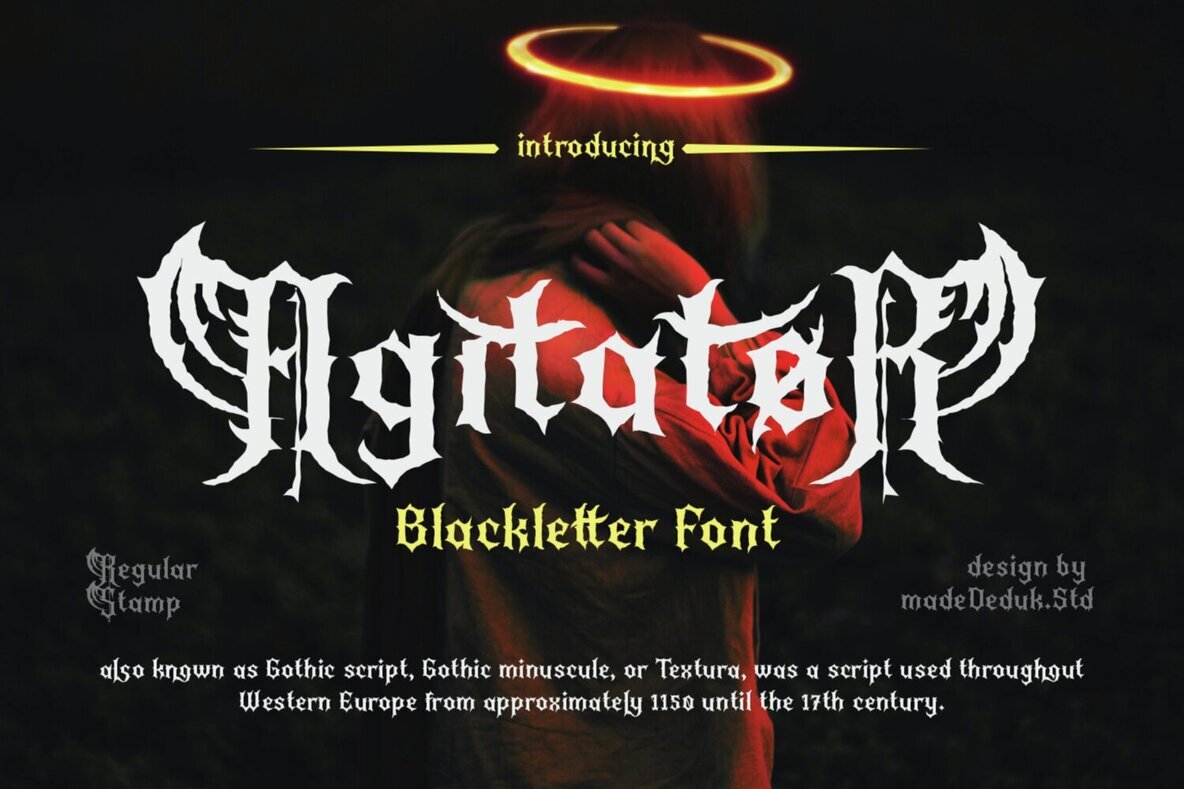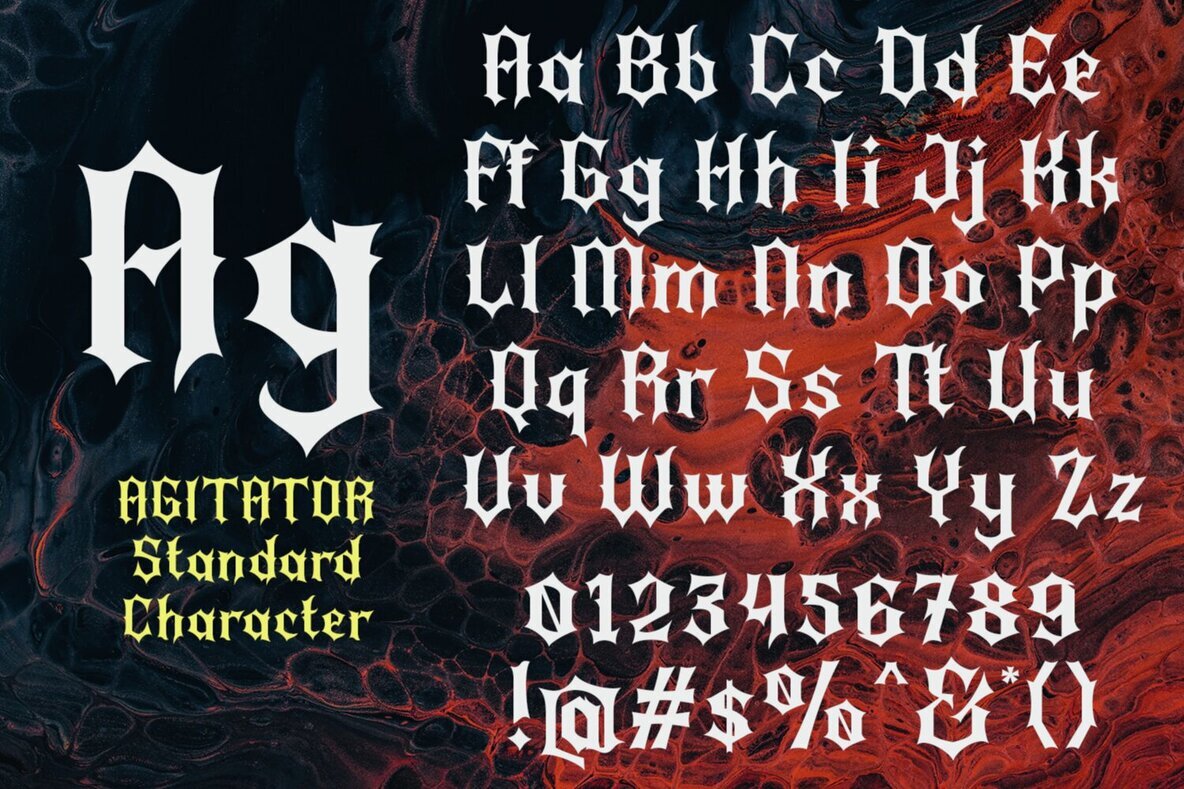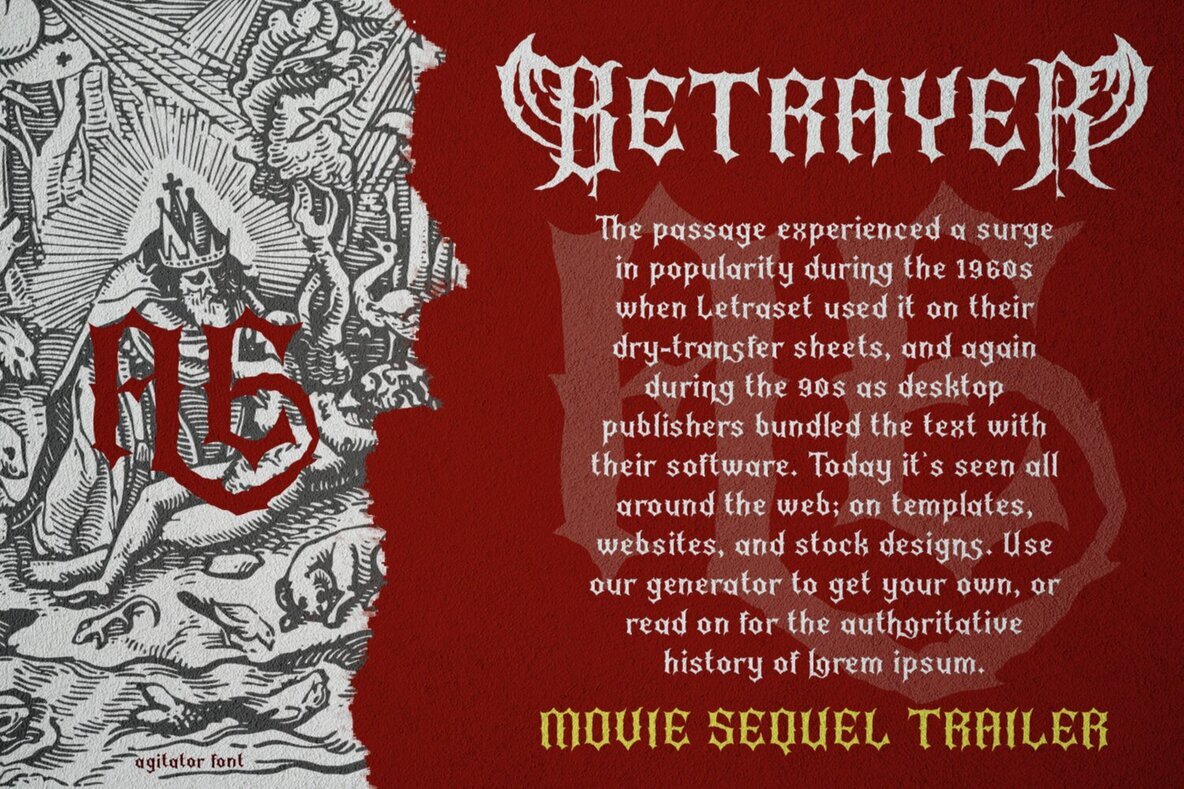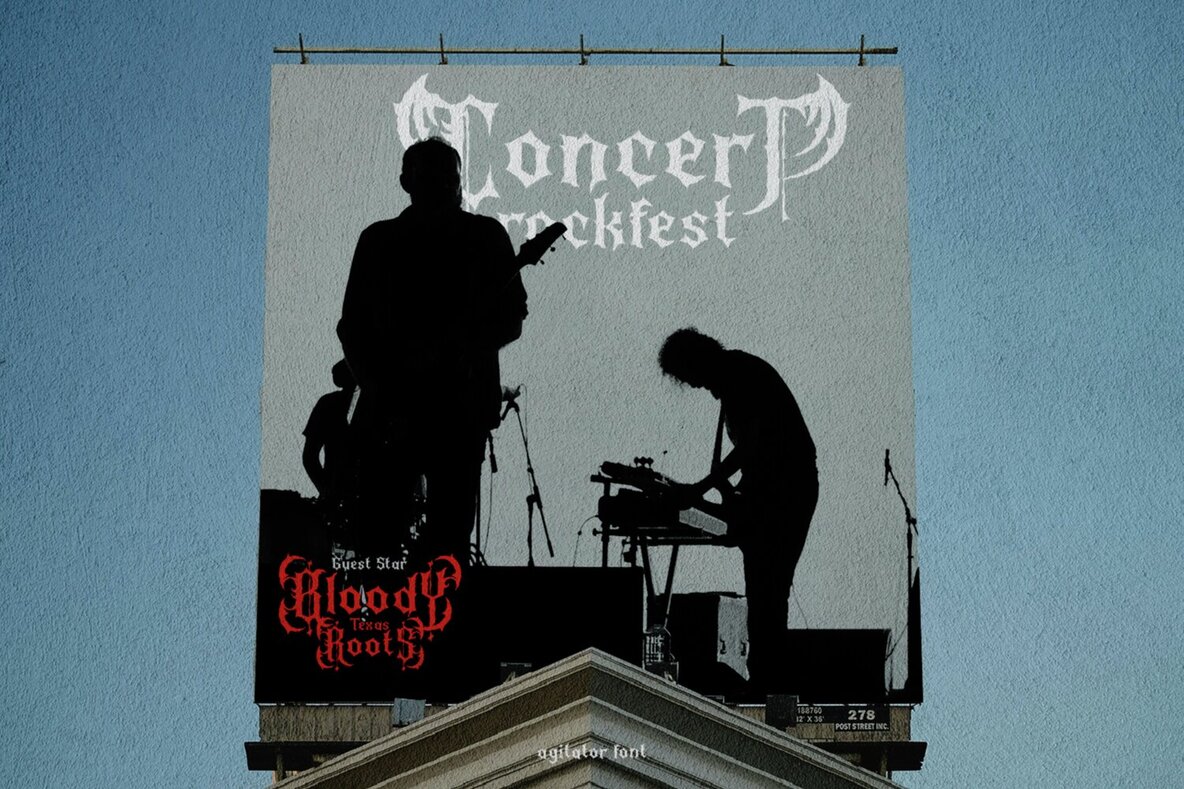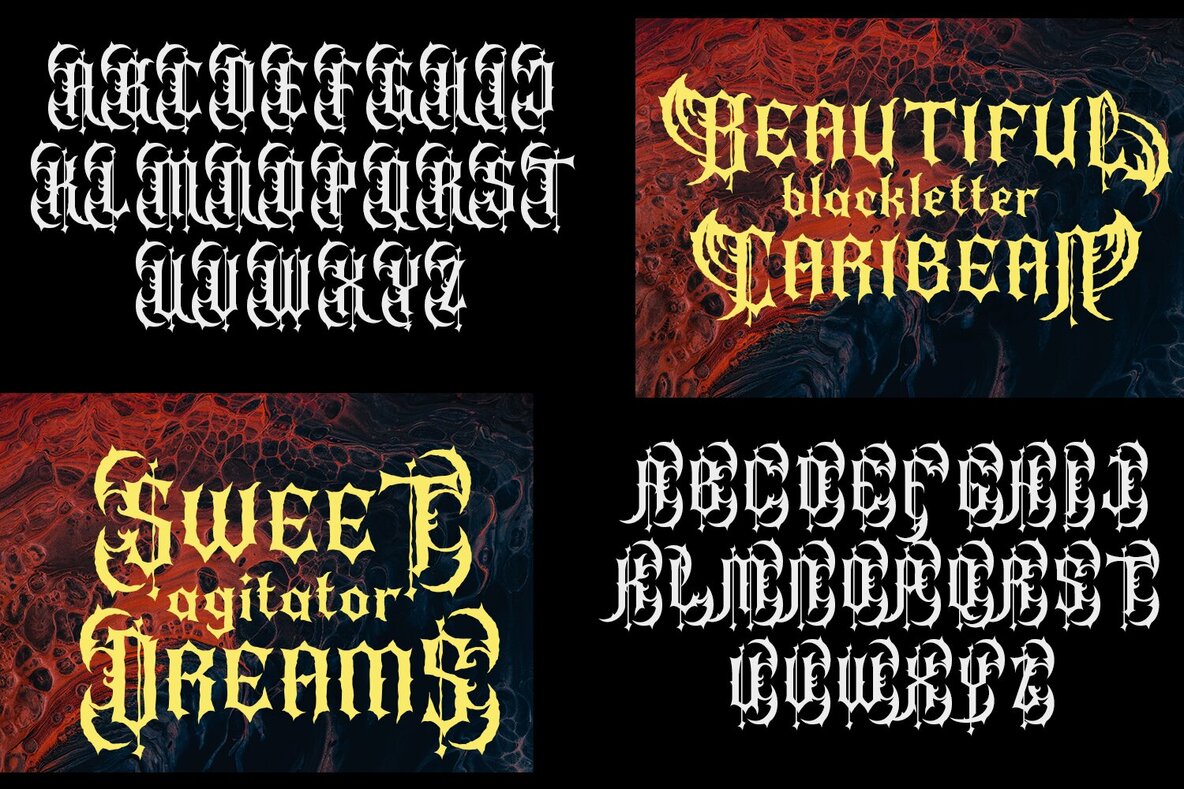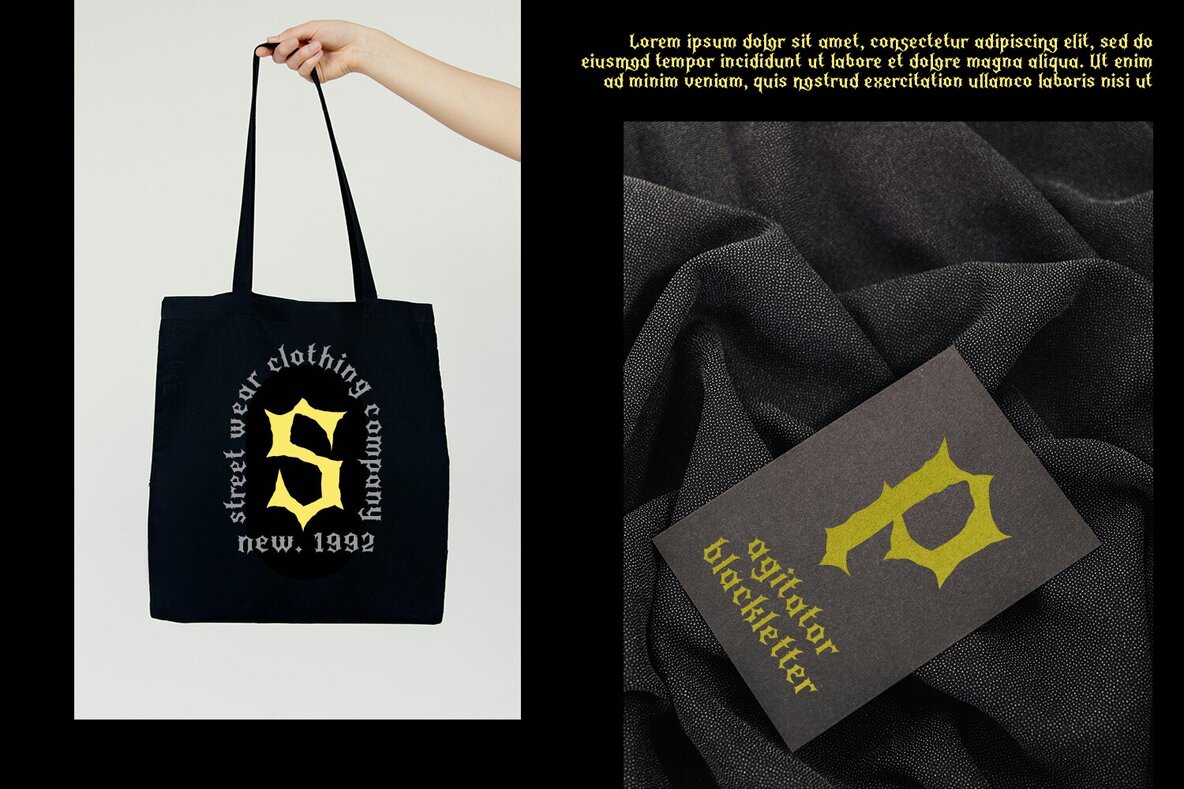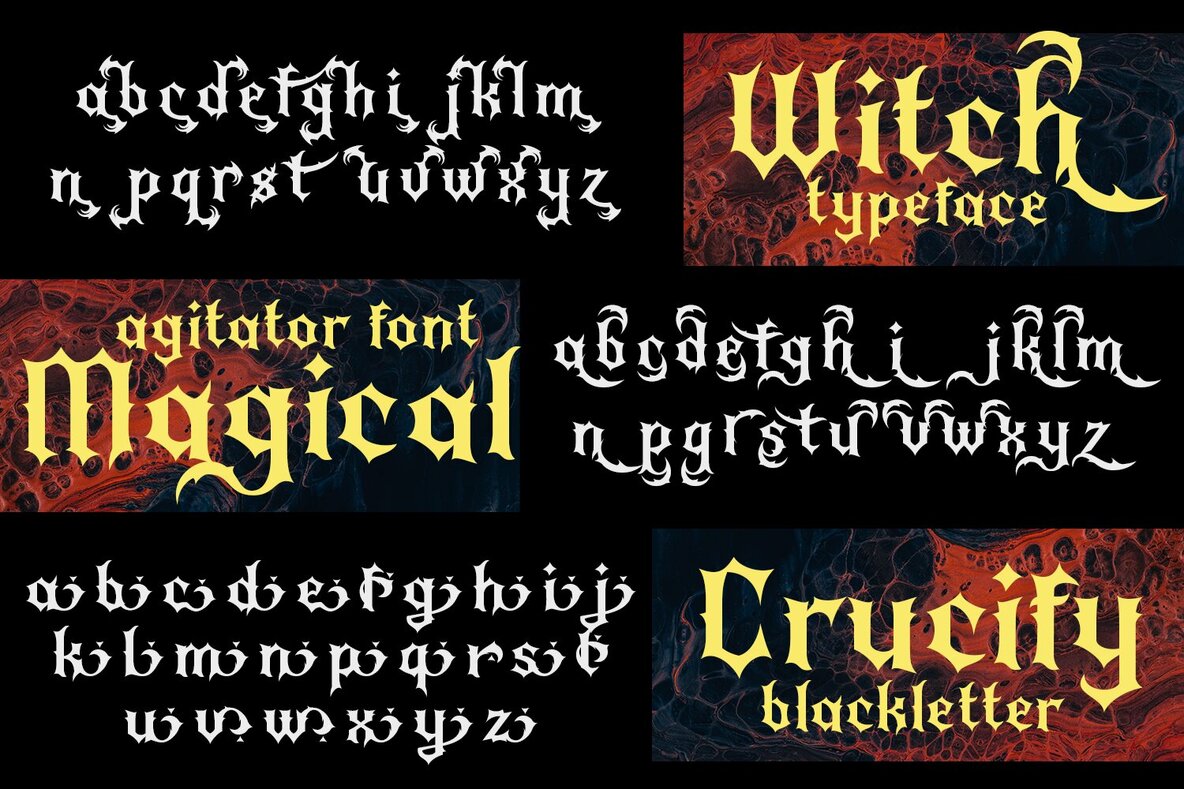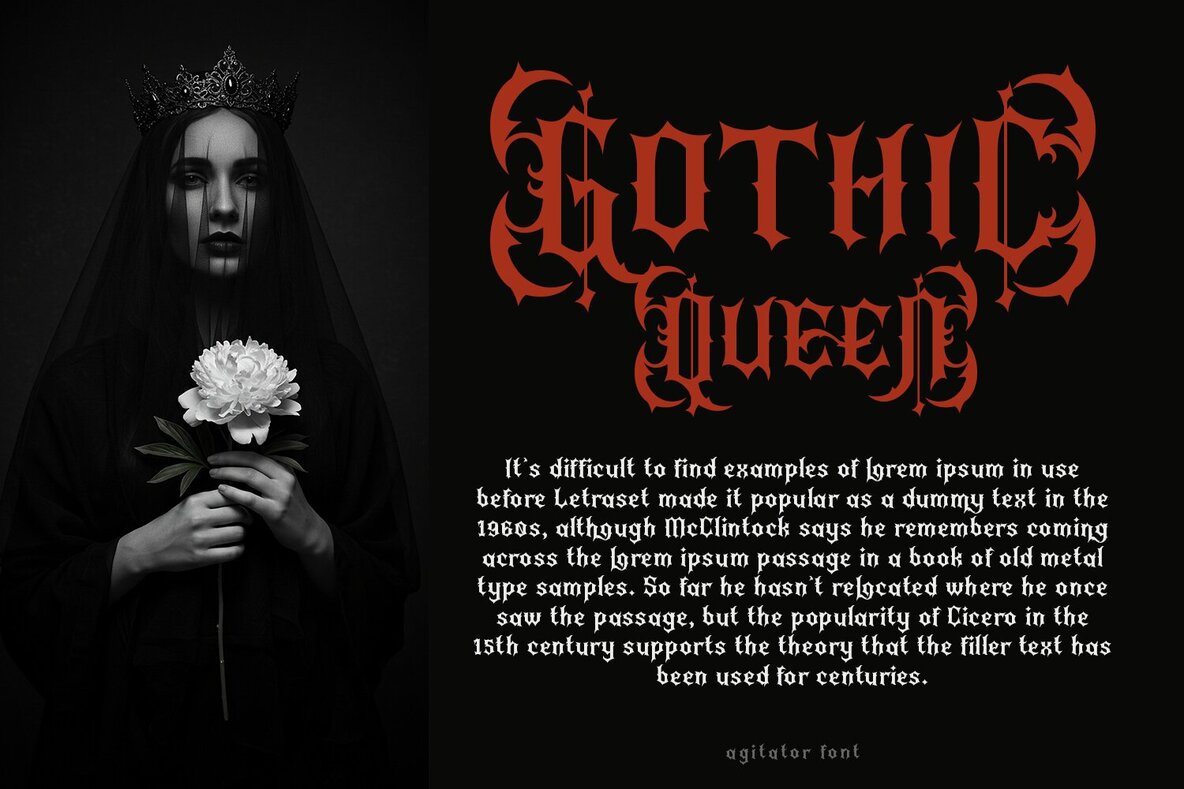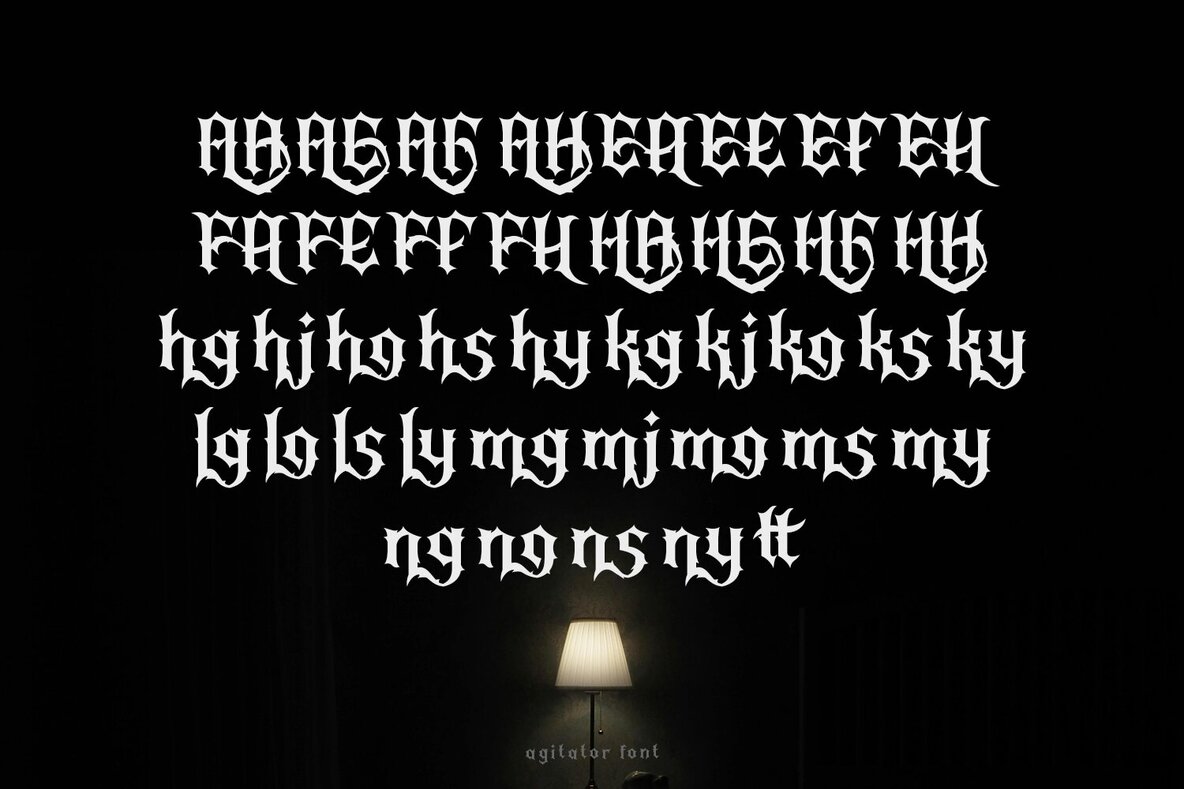
Agitator Font
Agitator is a striking blackletter typeface that distinguishes itself with bold, dramatic strokes and intricate details. Carefully crafted, each character exudes a rugged, vintage charm that ensures your text makes a powerful statement. This font comes with an array of ligatures and alternate characters, offering versatility for diverse applications including branding, logo design, cover art, editorial layouts, and apparel graphics. Whether you're crafting a bold headline or designing apparel graphics, Agitator delivers a distinctive flair that commands attention and resonates with any audience.Agitator Typeface: Bold Blackletter Design
Versatile Features